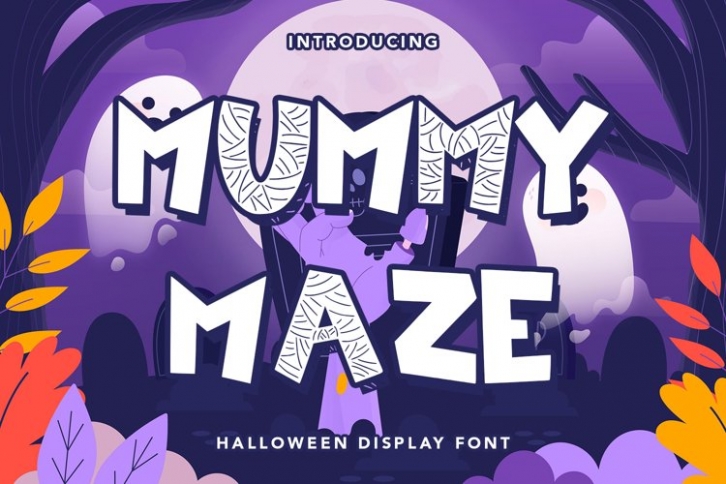
Mummy Maze is a great font that was designed by plusstore. Imagine the amount of combinations you can create using this font! The archive is 1.61 MB and it was released on September 24, 2021. Mummy Maze looks beautiful on wedding invitations, greeting cards, logos, posters, labels, t-shirt designs, logos, business cards and is perfect for use in ink or watercolor works, fashion, magazines, packaging and food menus, children's books and more!